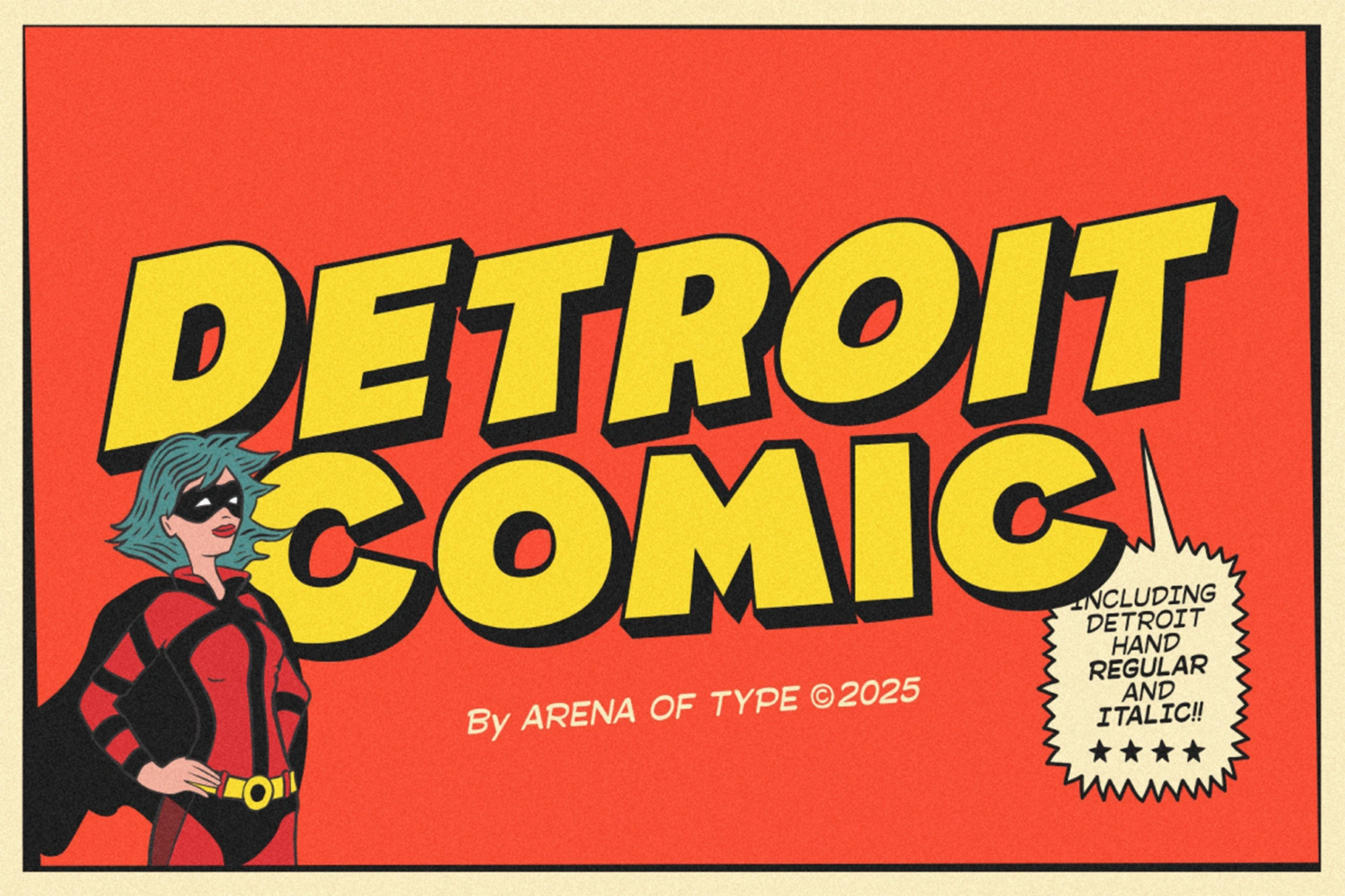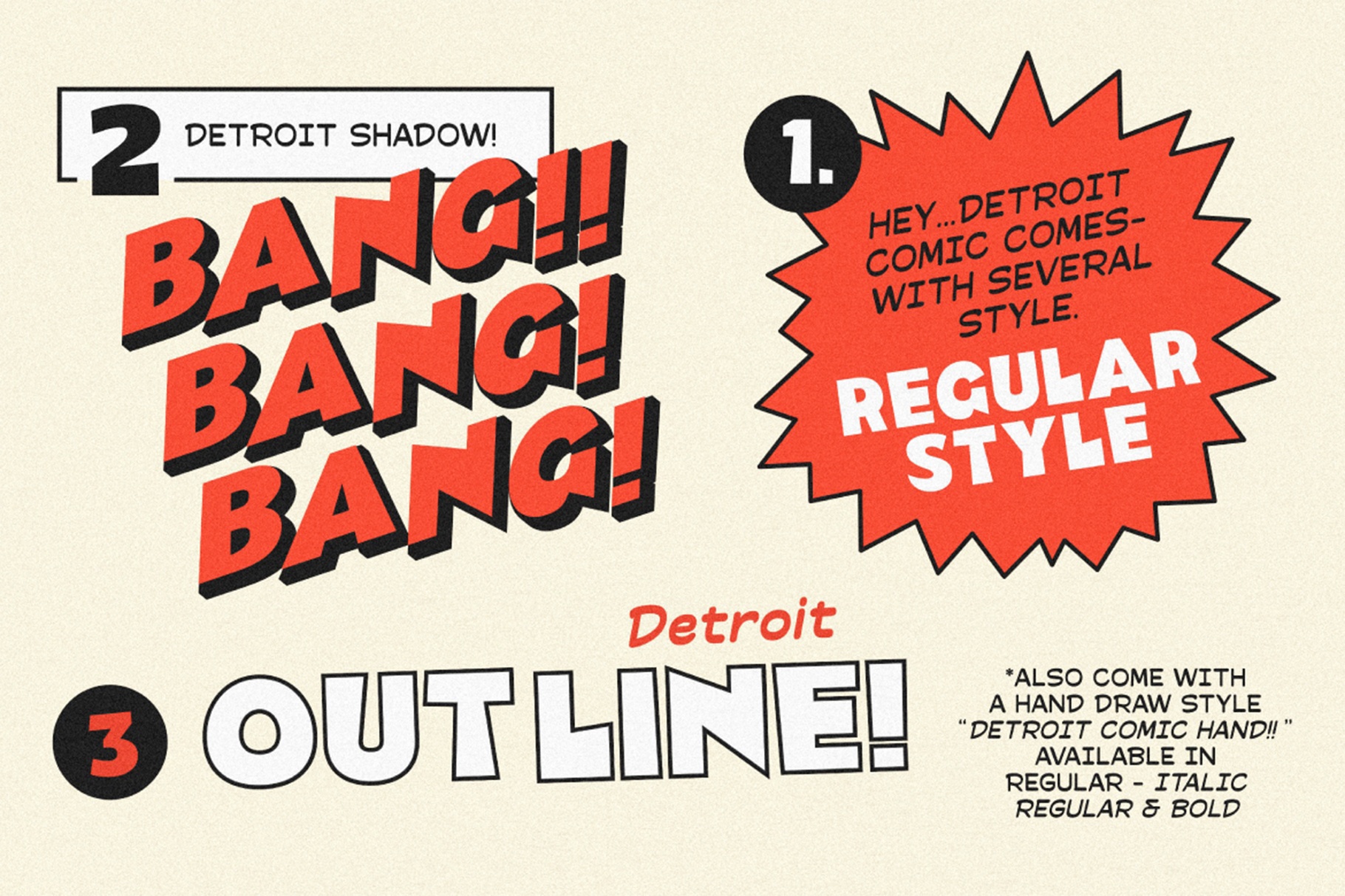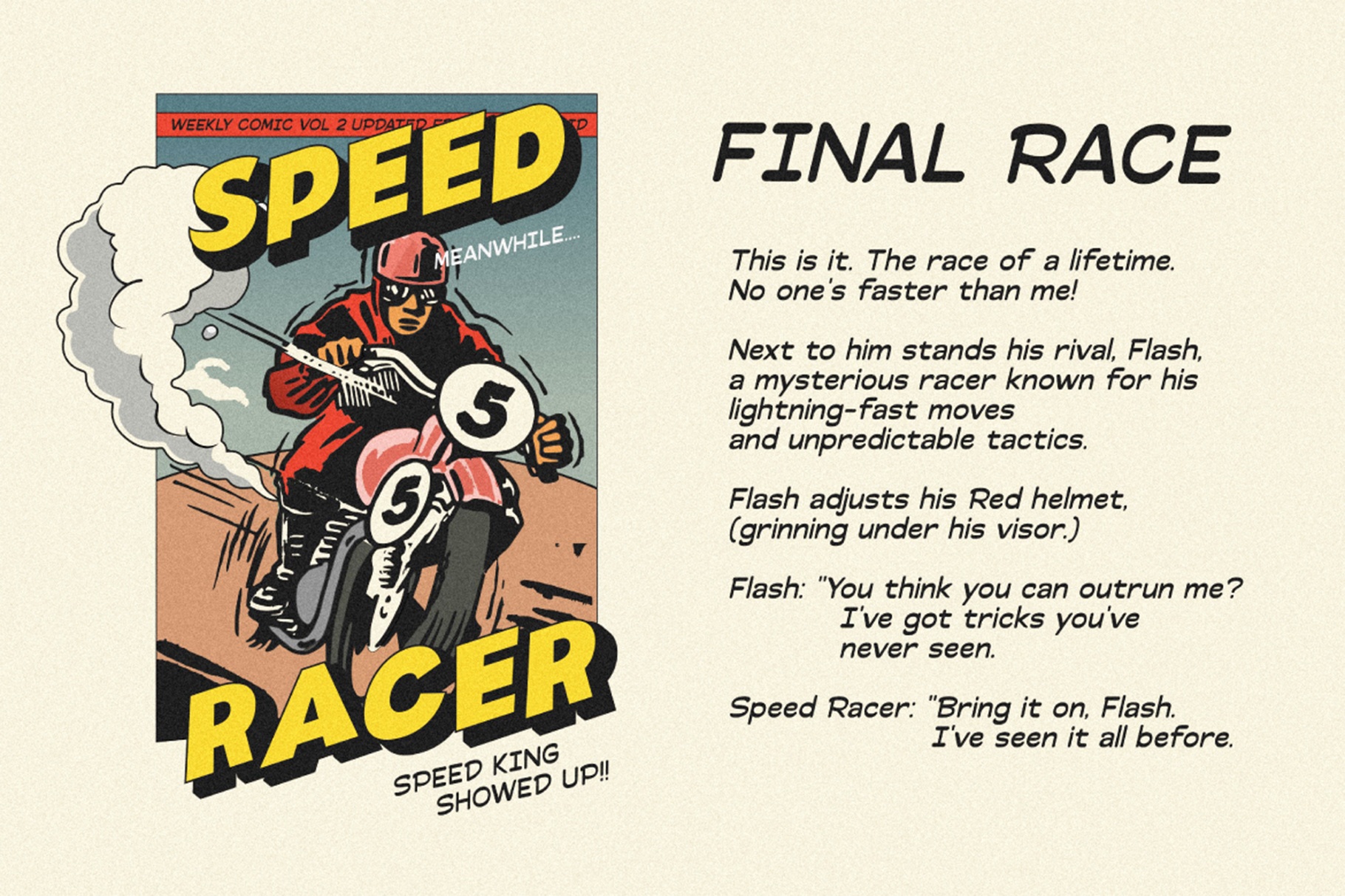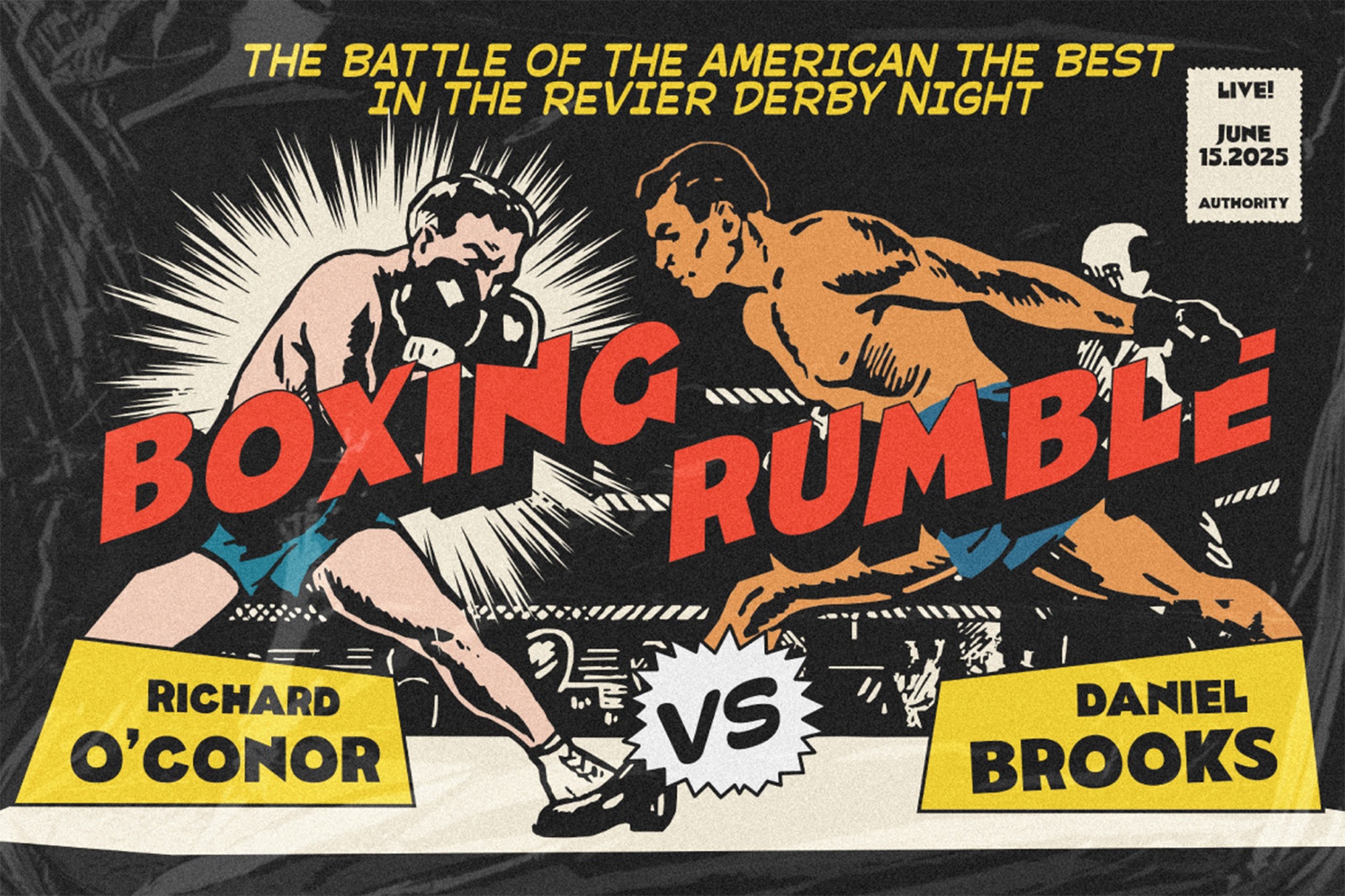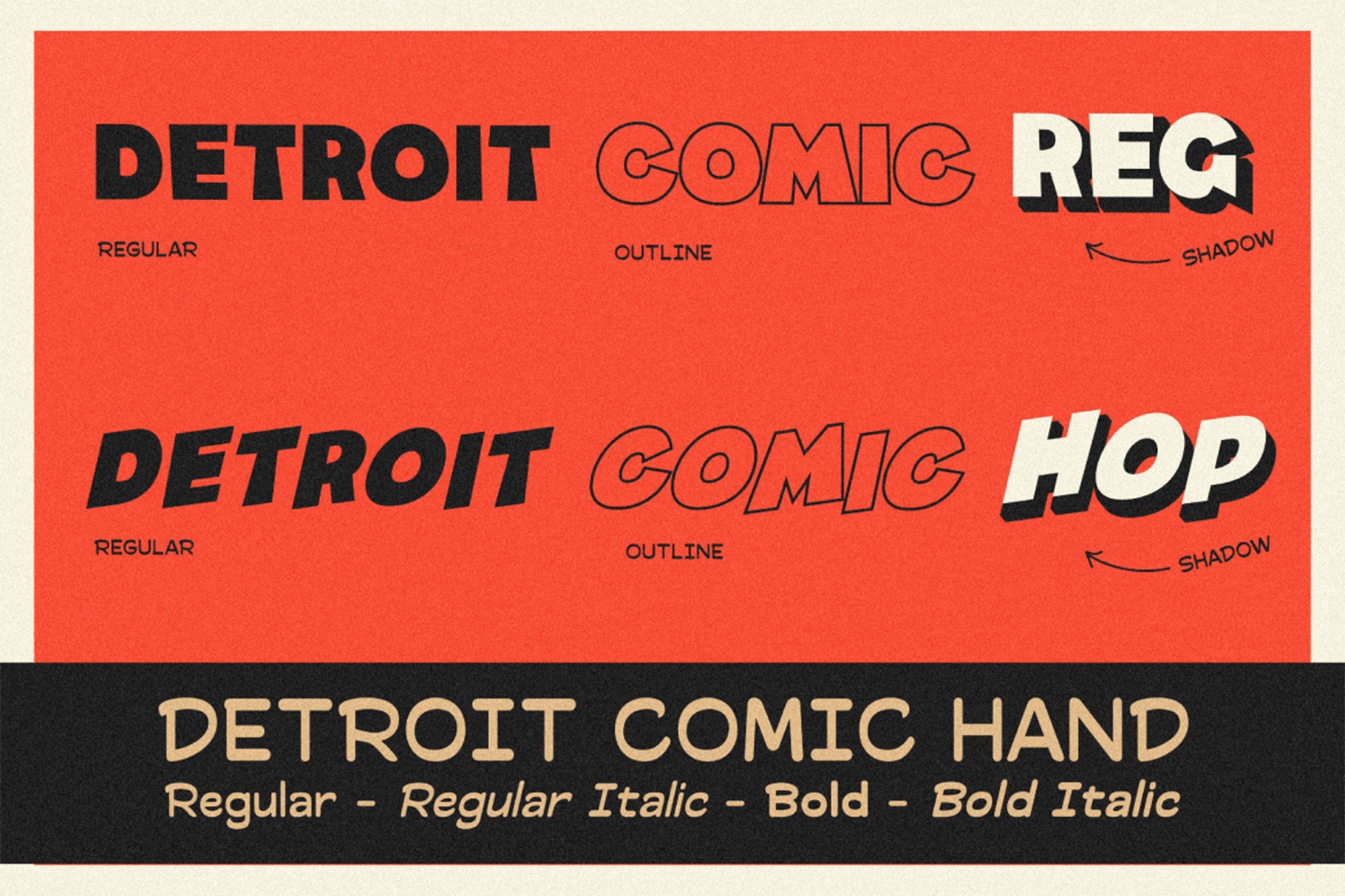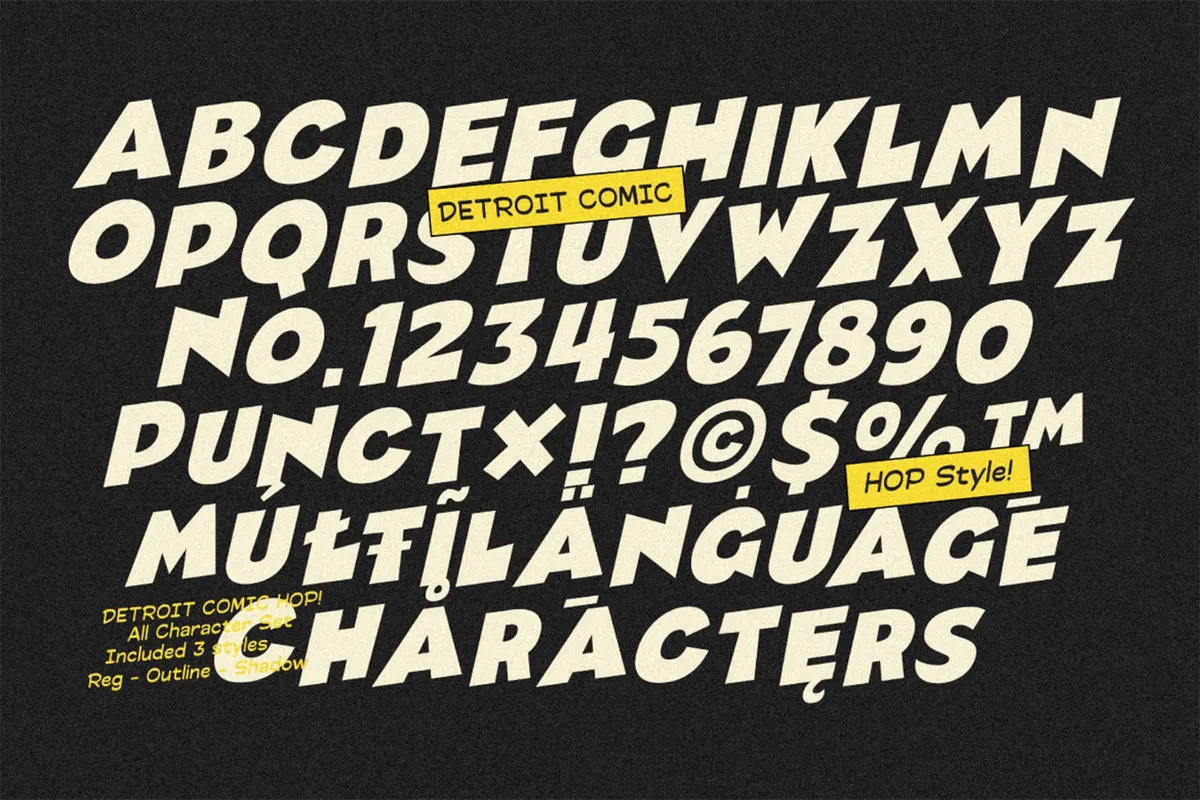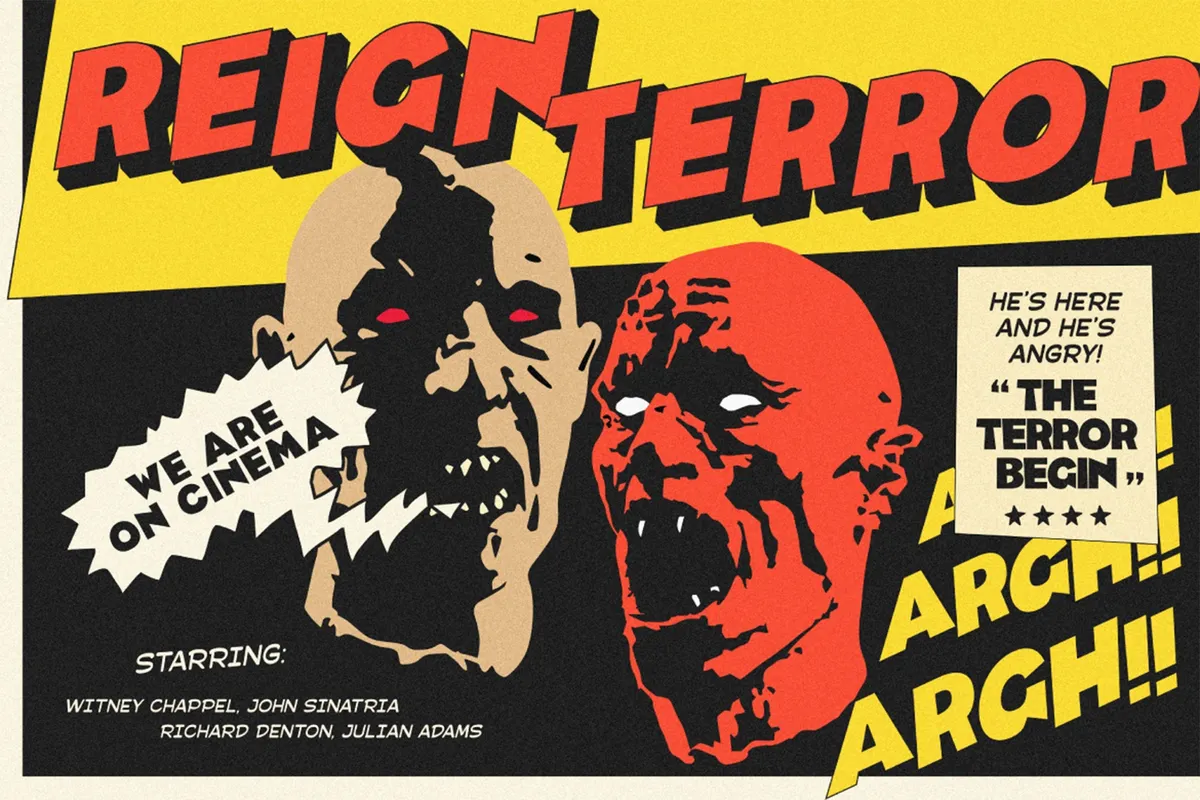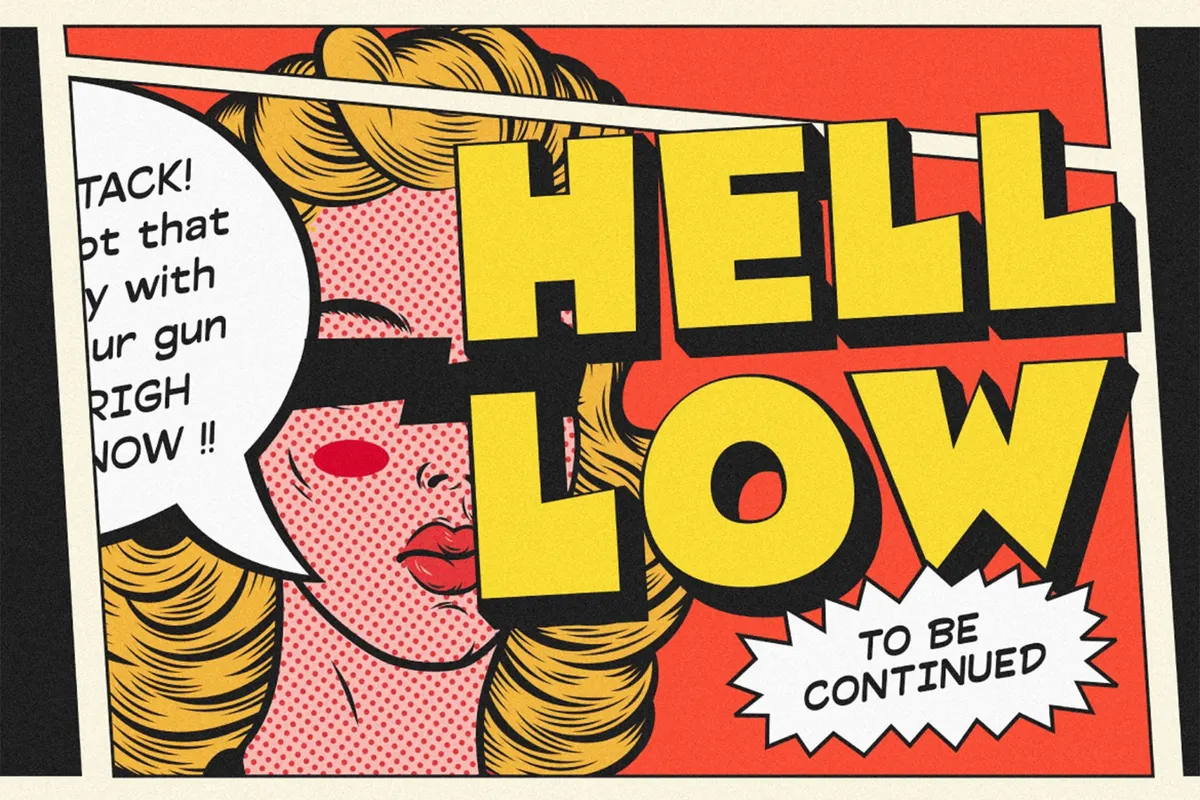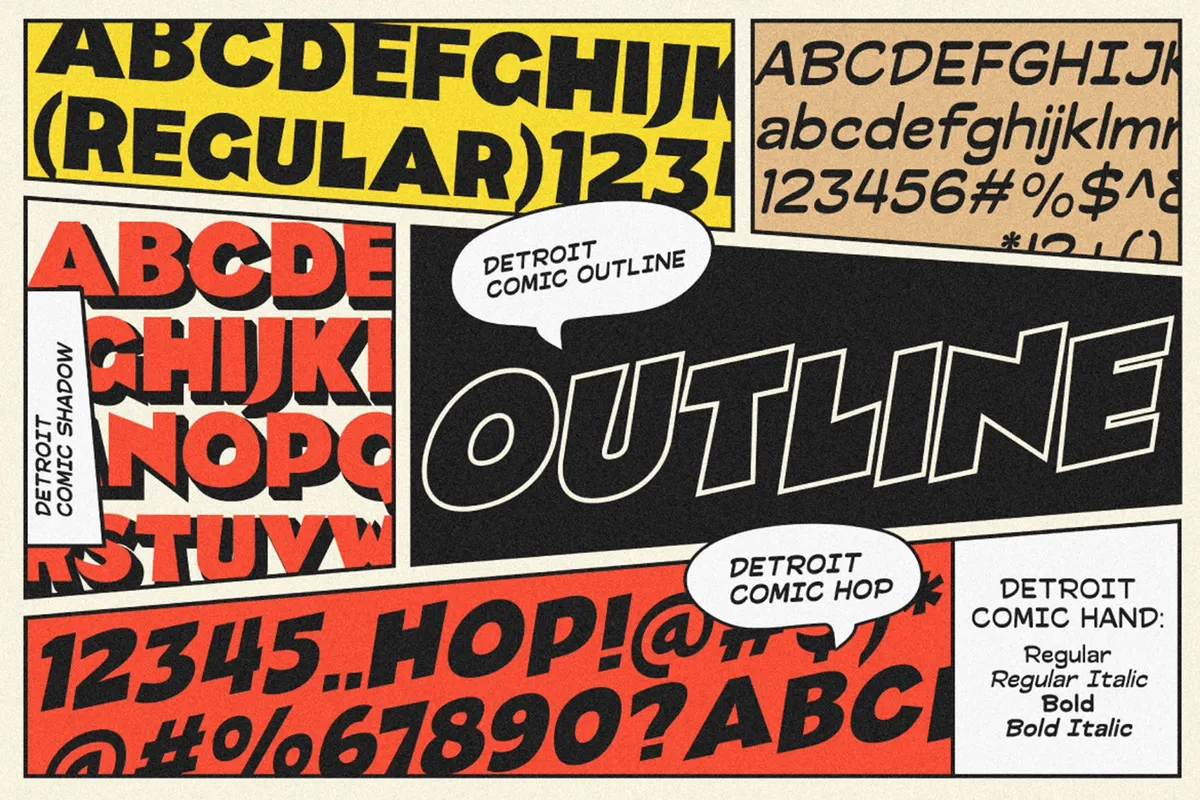
Detroit Comic – Comic Font Pair
Detroit Comic – Comic Font Pair is a bold and versatile type system designed to bring authentic comic energy into modern design projects. Inspired by classic comic book lettering and refined with a contemporary touch, this font pairing combines strong display styles with expressive handwritten variations for maximum creative flexibility.
This complete collection includes 10 expressive styles, carefully crafted to work seamlessly together:
• Detroit Comic (Regular, Outline, Shadow). A powerful display font made for headlines, covers, posters, and high-impact titles.
• Detroit Hop (Regular, Outline, Shadow). A more playful and energetic variation that adds rhythm and movement to your layouts.
• Detroit Hand (Regular, Outline, Shadow). A natural comic hand style ideal for speech bubbles, captions, notes, and storytelling elements.
The pairing between Detroit Comic and Detroit Hand allows you to create authentic comic compositions with strong hierarchy and visual contrast. Perfect for comic books, merchandise, posters, branding, packaging, YouTube thumbnails, kids projects, and social media graphics.
• 10 Font Styles Included
• Display And Handwritten Pairing
• Regular, Outline, And Shadow Variations
• Italic And Bold Options
• Uppercase And Lowercase
• Numbers And Punctuation